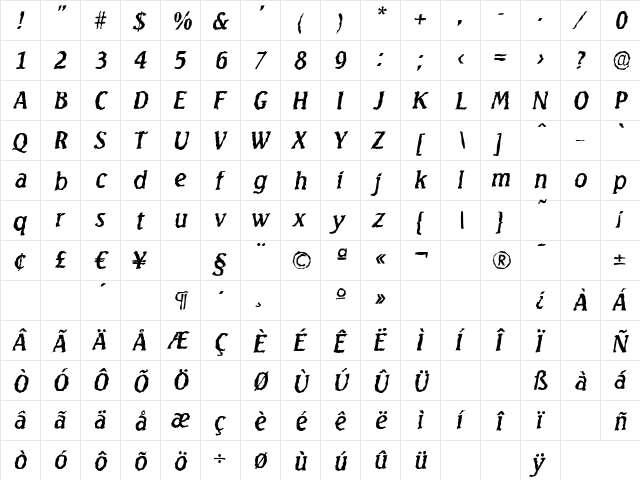
SeagullRandom Italic
Design Context for SeagullRandom Typeface
SeagullRandom takes a measured approach to typography — its balanced proportions and neutral character make it a reliable workhorse for both digital and print work. The slanted form adds forward momentum and visual energy.
Pro Tip: Use SeagullRandom for emphasis, pull quotes, and subheadings where its slanted energy can add rhythm to the layout.